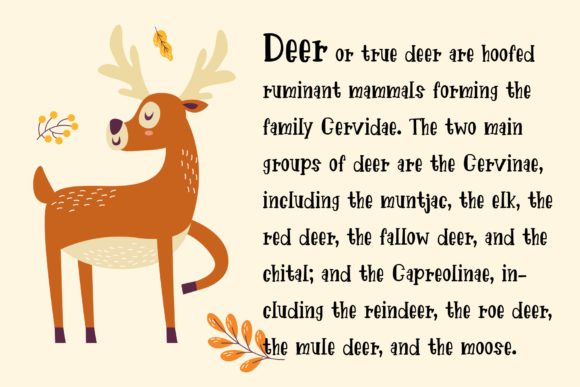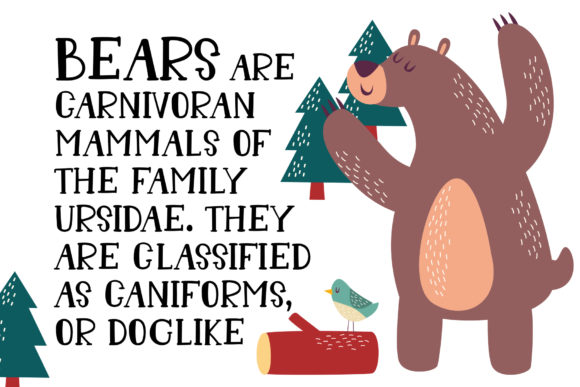
Forest Animal Font
db-ku.com - Script & Handwritten -- Forest Animal is a cute and quirky handwritten font. It has a cartoon like style and is ideal for a variety of children related designs.